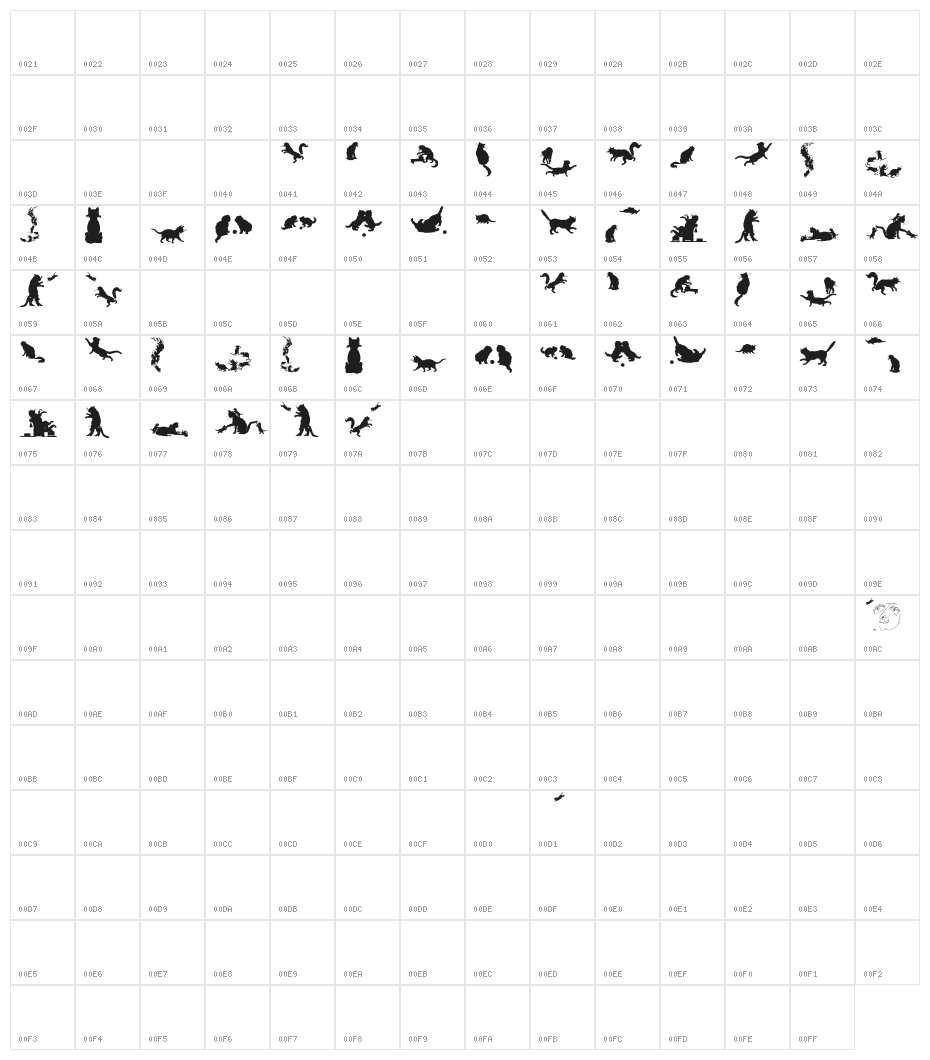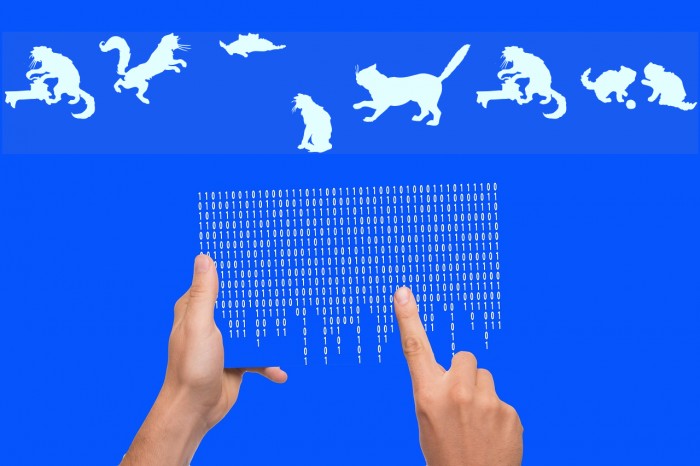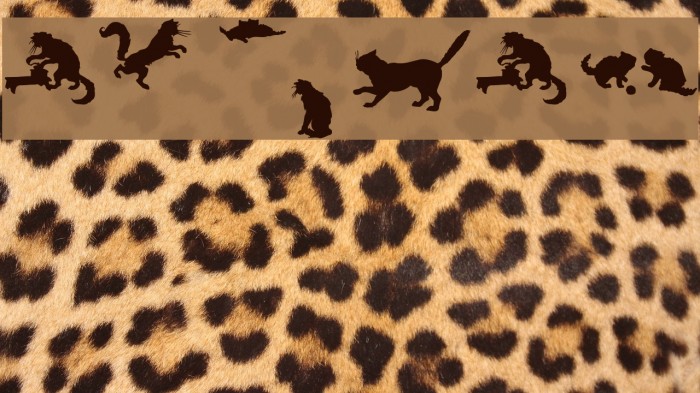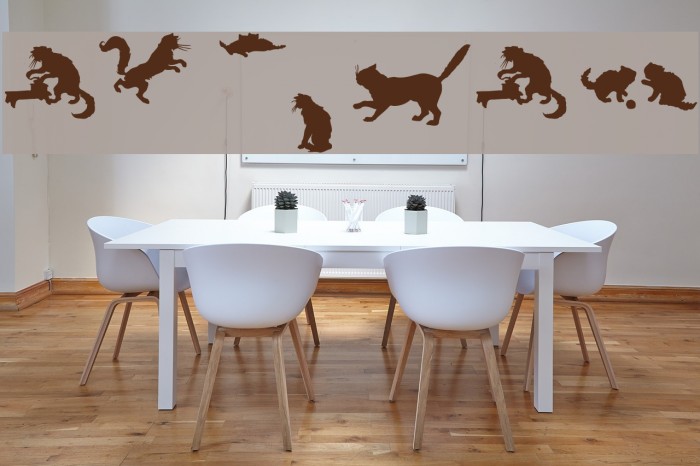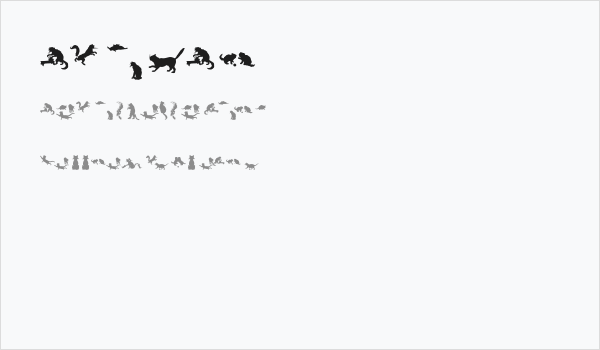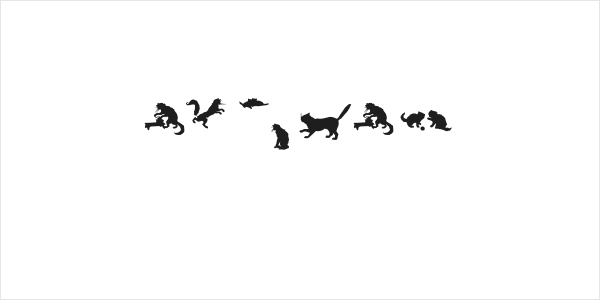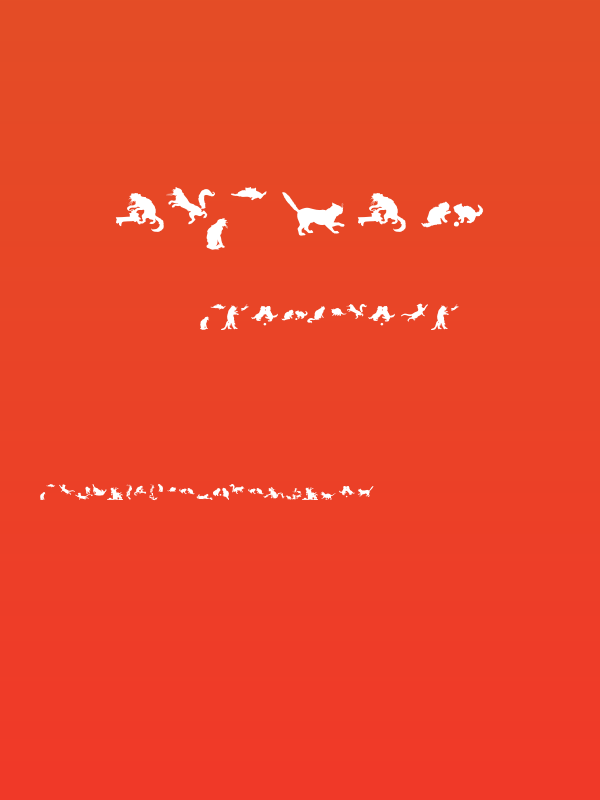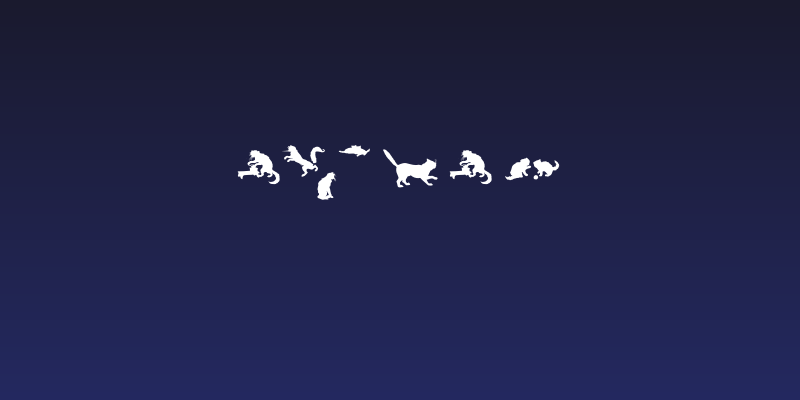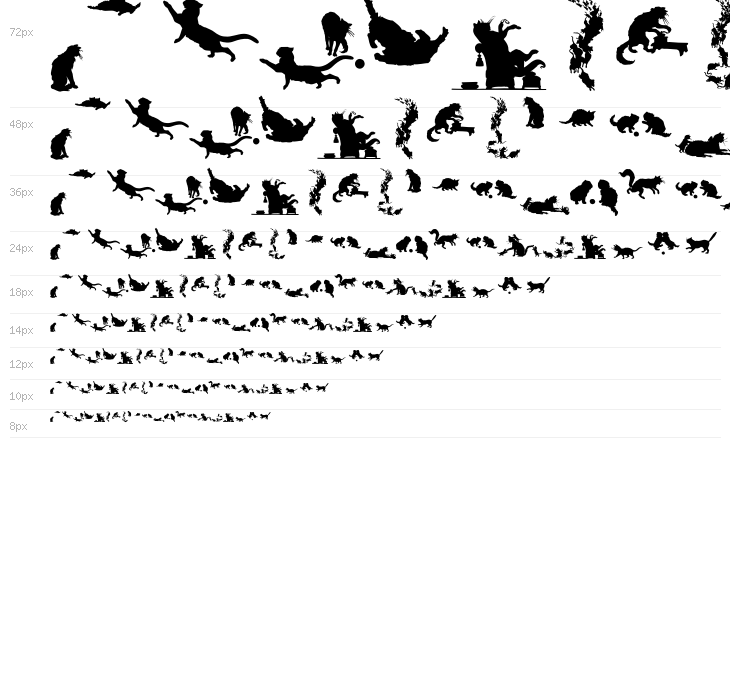
CatsCo Font
CatsCo Description
A playful decorative font composed entirely of black cat silhouettes in various poses and activities, with some including small animals or whimsical elements, creating a unique pictorial alphabet.
| Overall Style | Decorative, Playful, Whimsical |
| Use Case | Logos, Headlines, Posters, Themed Graphics |
| Proposed Projects | Pet branding, children's books, animal shelter posters, playful invitations, themed event graphics. |